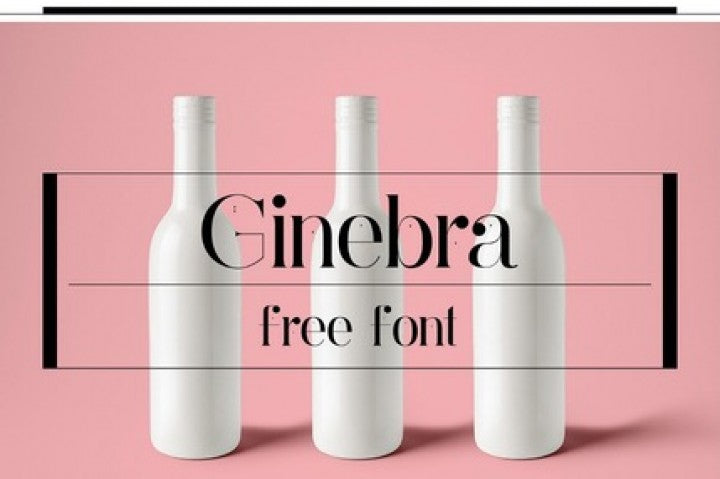
Free Ginebra Font
Featuring the adorable free ginebra font. The Hungry JPEG has created this amazing and beautiful typeface. You can create a professional designs with this fancy font.